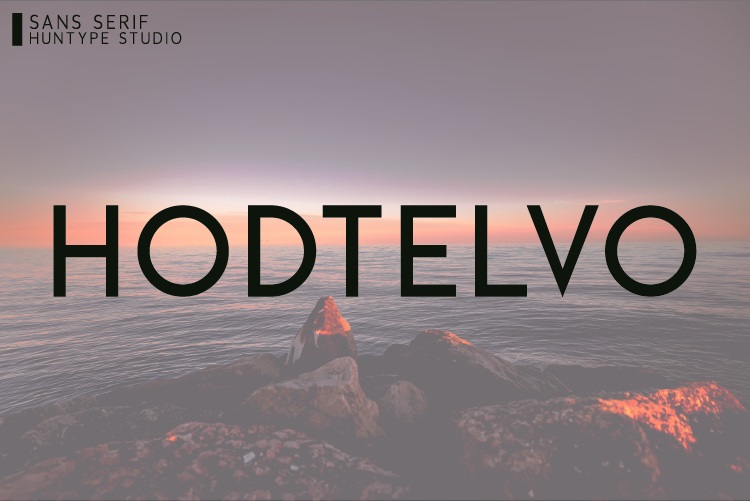
Hodtelvo Font
Hodtelvo is a sans-serif font of its own. Its neat order in appearance can fit any formal or even informal designs perfectly as a chance to show off the beauty of the letter.
Hodtelvo Sans Serif Font